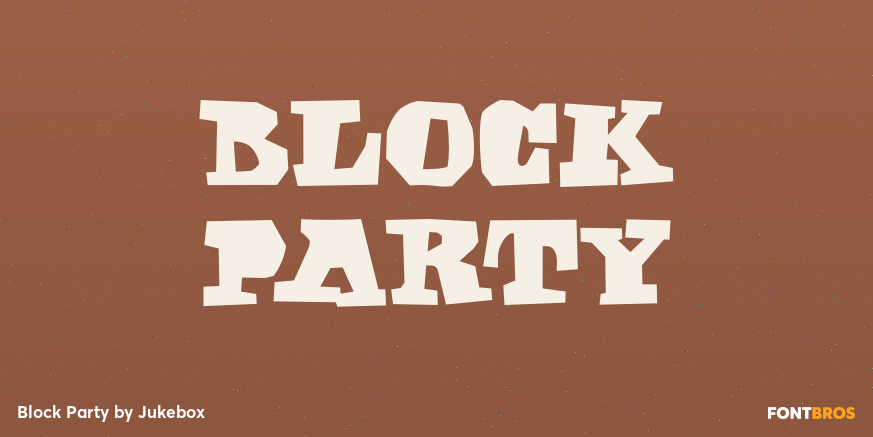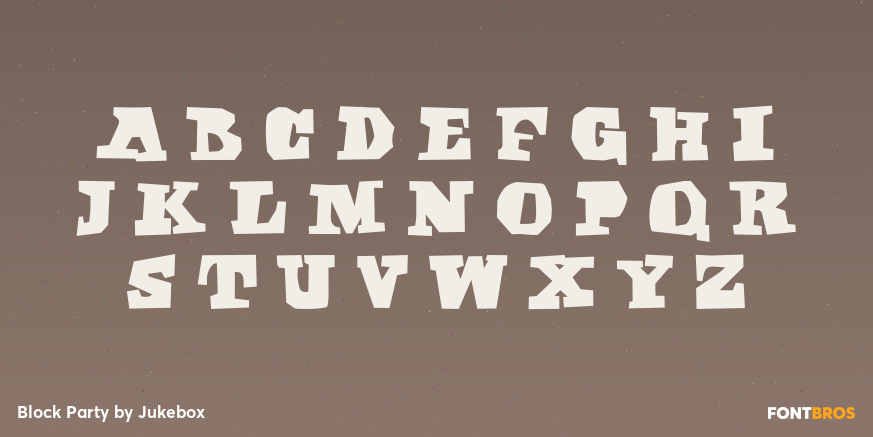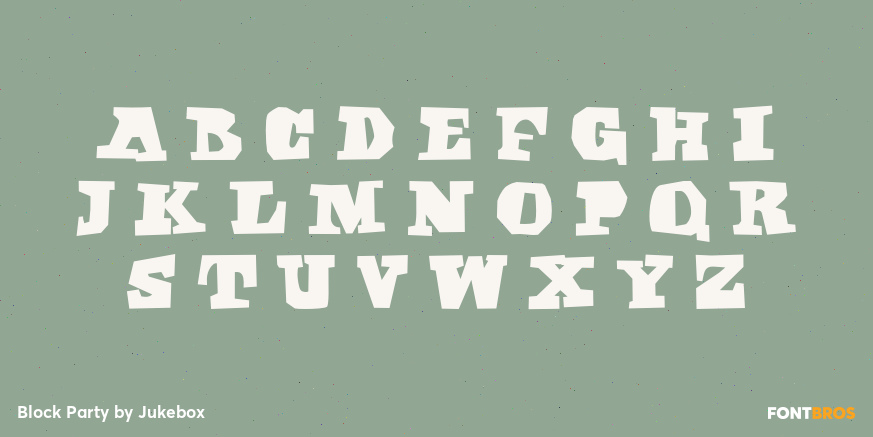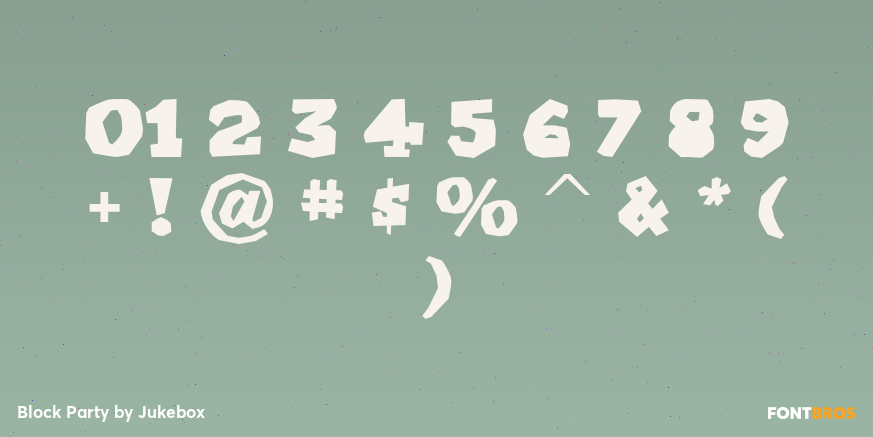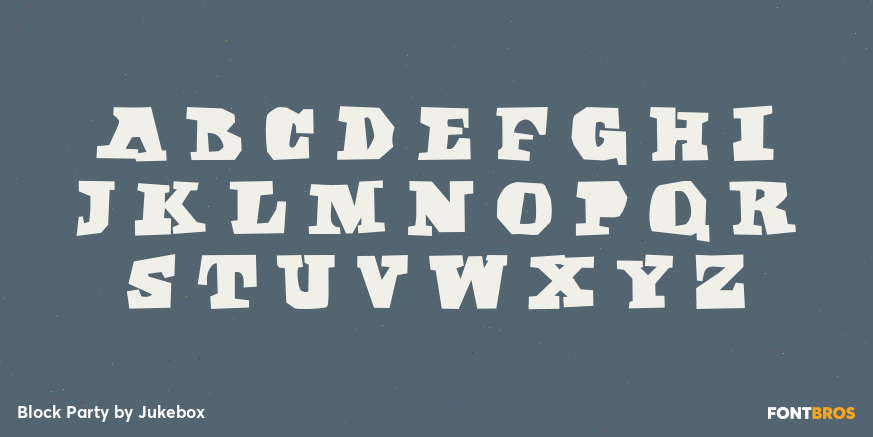
Block Party
Font Family by Jukebox
Block Party is a heavy, rugged rough looking typeface that is great for any upbeat, childlike design. The clunky letterforms are primitive, pre-historic and fun.